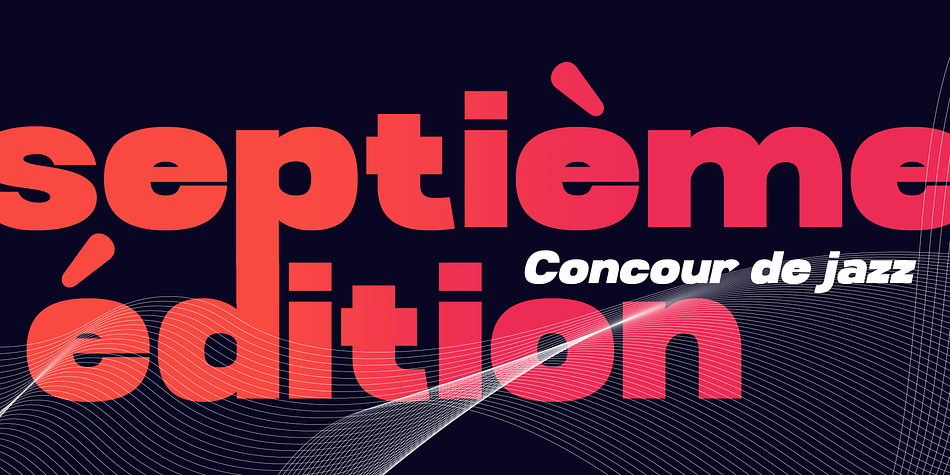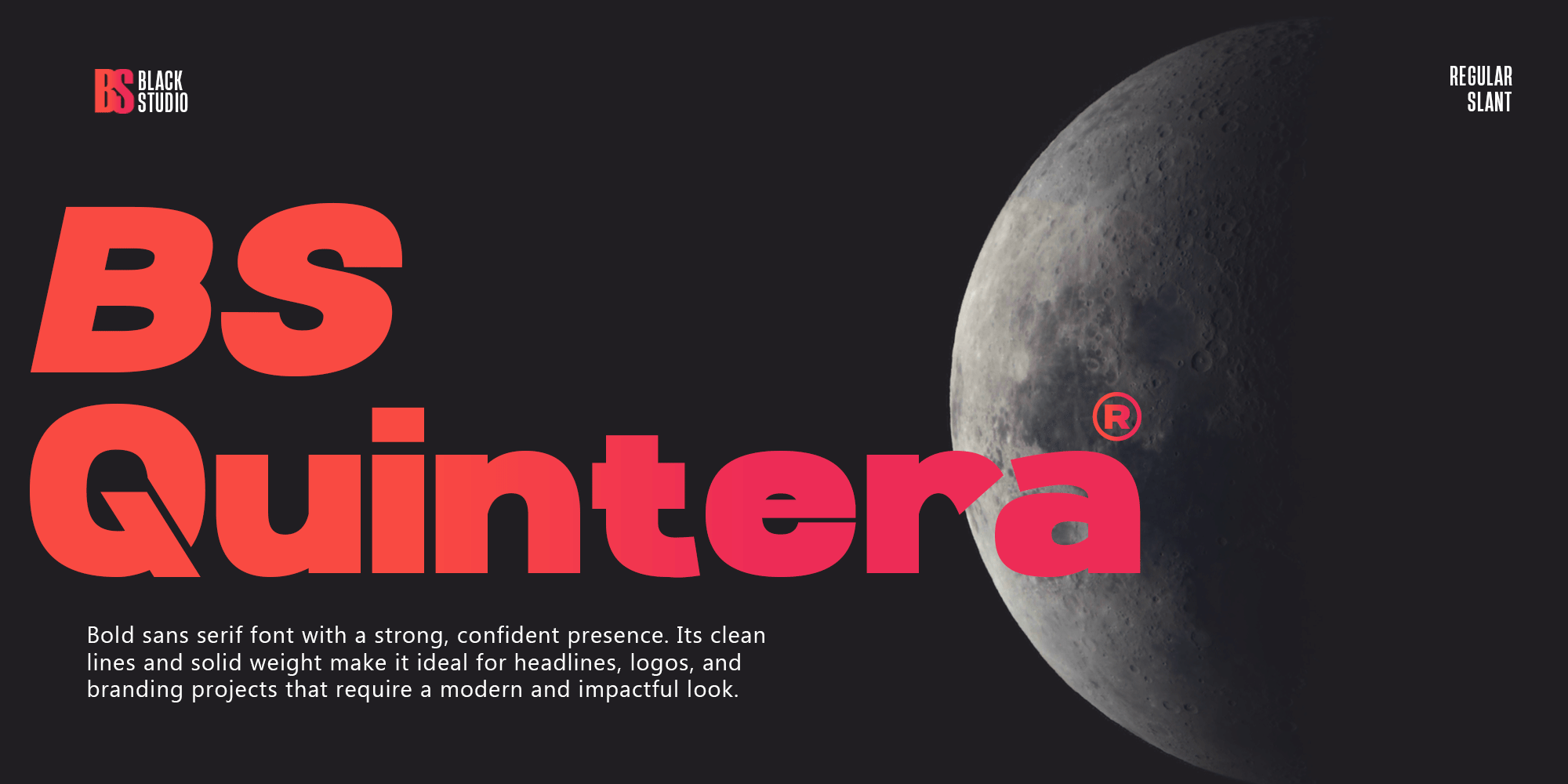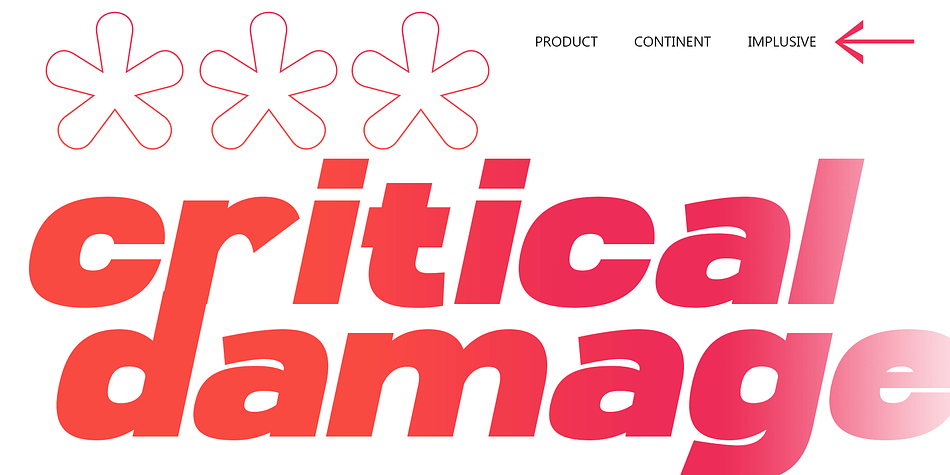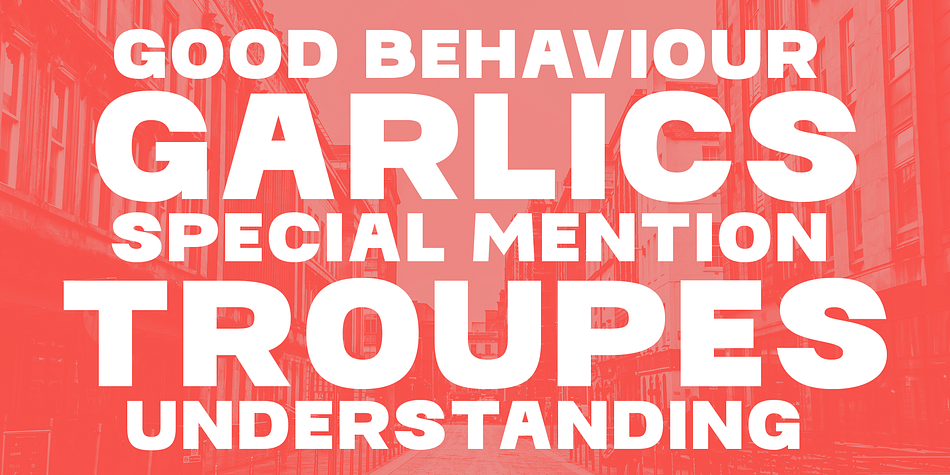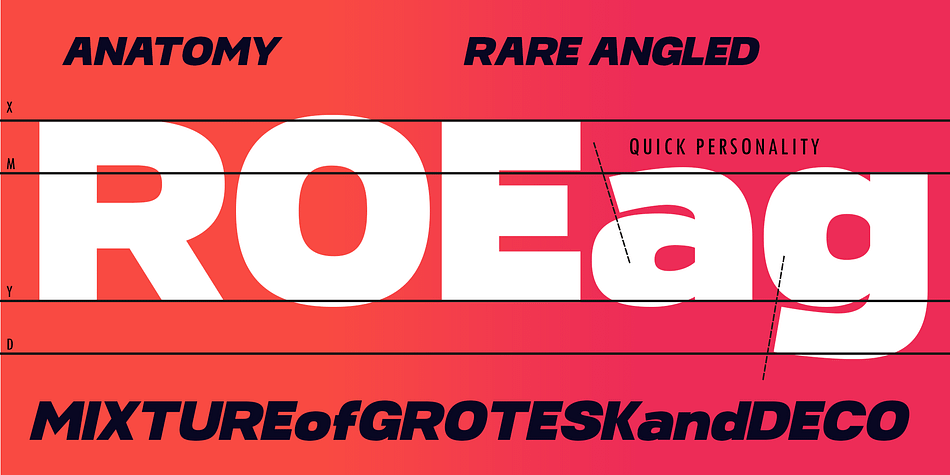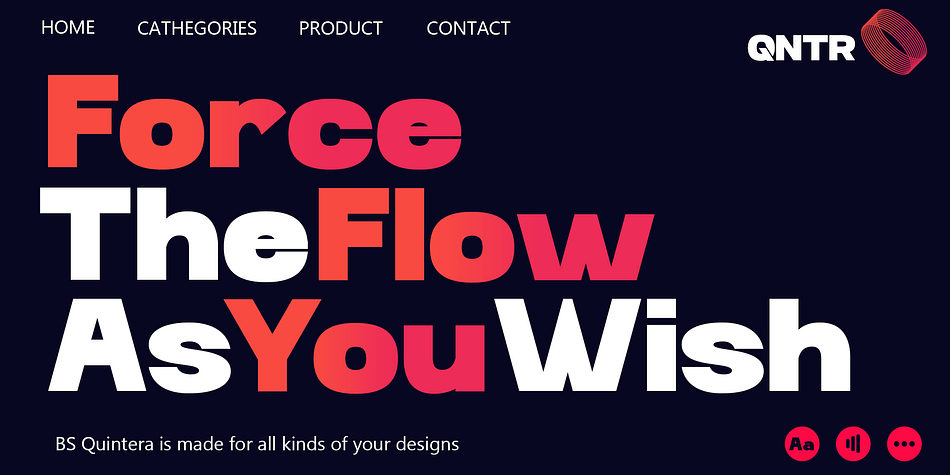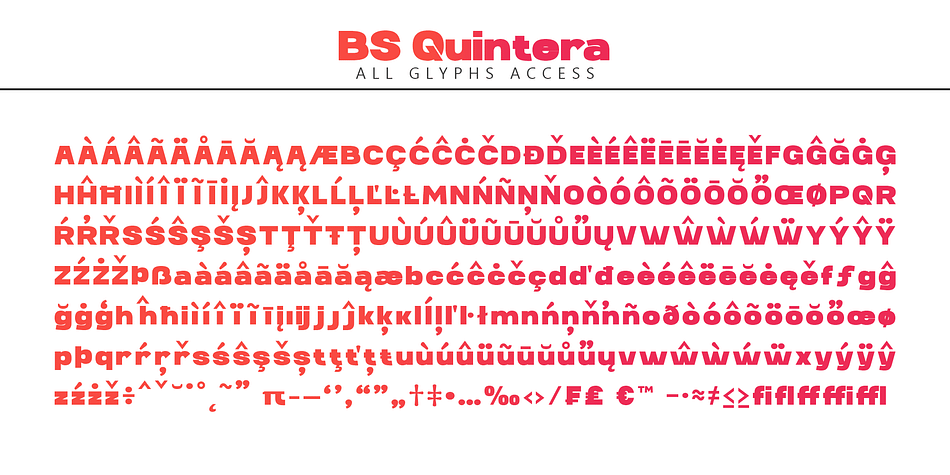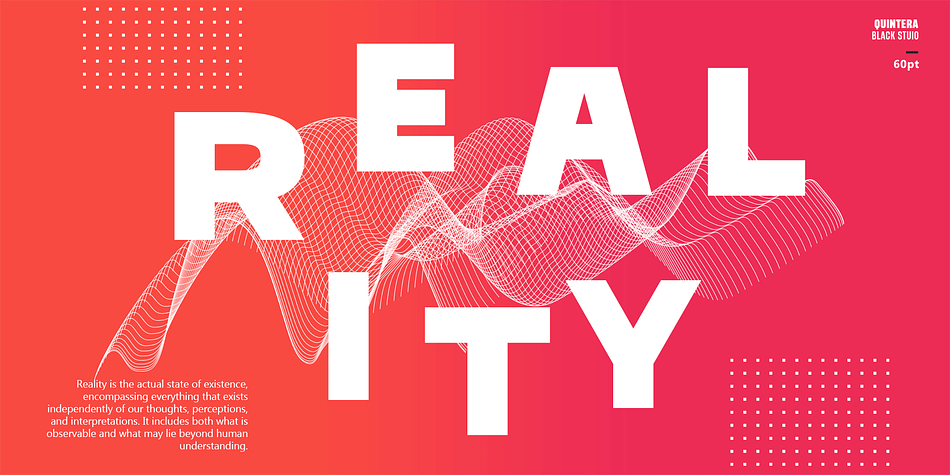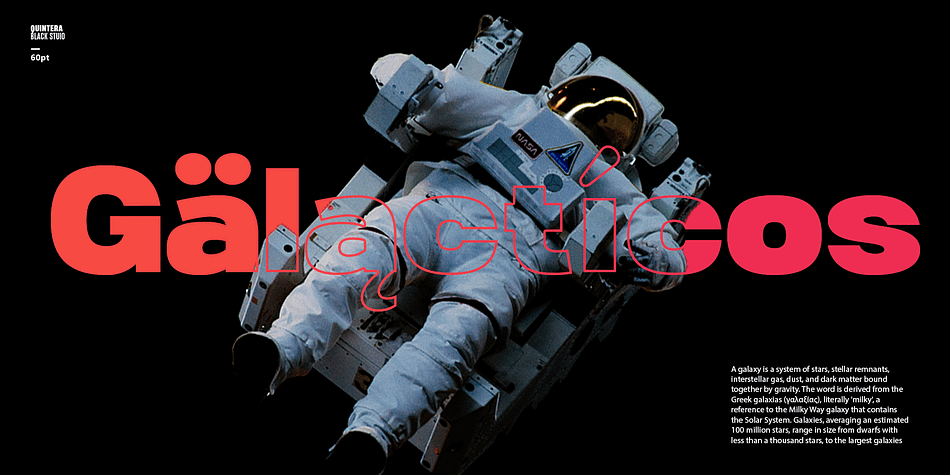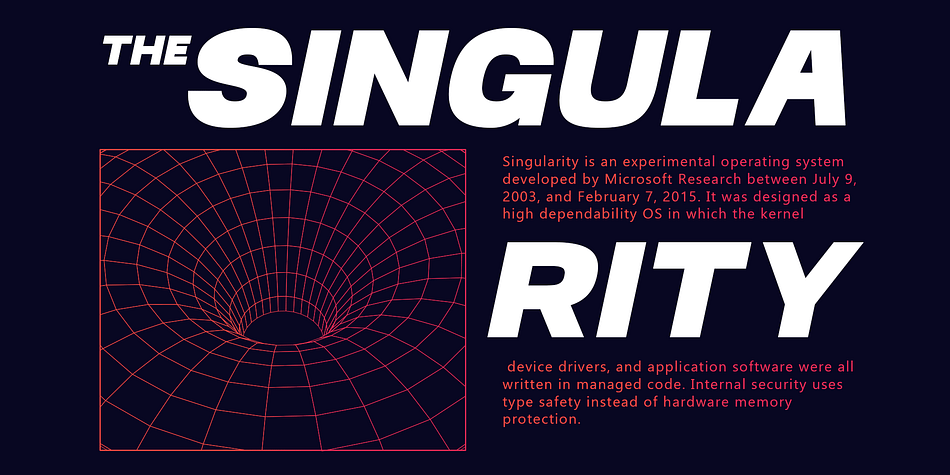
BS Quintera
BS Quintera is a sans serif font family. This typeface has two styles and was published by Black Studio.
The BS Quintera font family brings a blend of boldness and sophistication through its sans serif design, offering both Normal Bold and Italic styles. The Normal Bold is characterized by its solid, clean lines and strong presence, perfect for commanding attention in headlines, posters, and branding elements. Its minimalist yet impactful appearance ensures readability while conveying authority.
The Italic variant of BS Quintera introduces a refined, dynamic twist to the font family, adding fluidity and motion to text. This style is ideal for creating emphasis, quotes, or stylized subheadings, delivering a modern, elegant touch to any design.
With its sleek design and versatility, BS Quintera is perfect for digital and print projects, providing a professional yet stylish solution for logos, editorial design, marketing materials, and more. Its geometric form and balanced proportions make it a go-to choice for contemporary typography, ensuring that text stands out with clarity and grace.